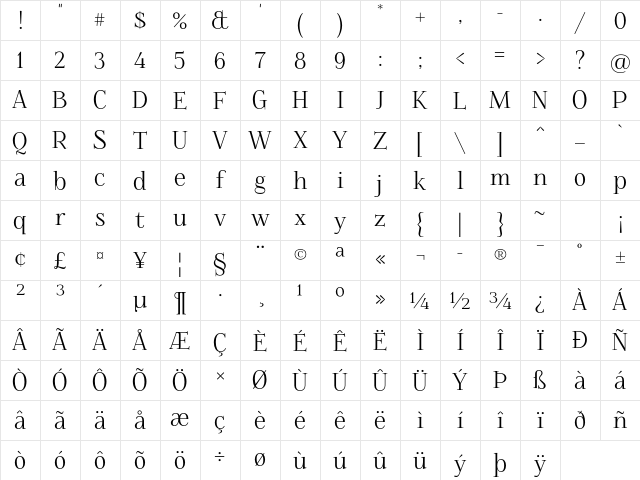
Foglihten Regular Free Font
Foglihten Regular
Design Context for Foglihten
Foglihten is a composed and adaptable typeface that performs quietly and consistently across a wide range of design contexts.
Pro Tip: Use Foglihten in both headline and body roles to test its range before committing to a single application.